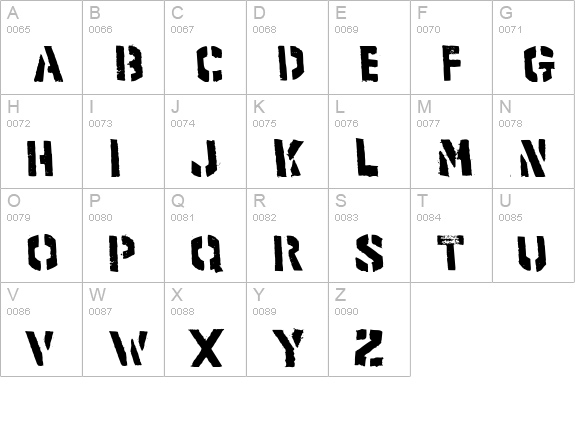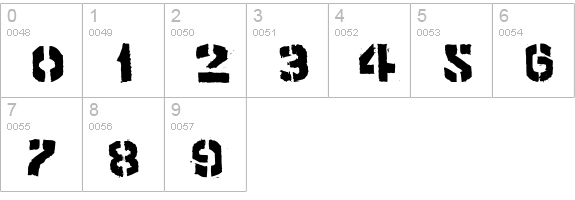
Introducing our exquisite font, designed to elevate your design projects to new heights. This versatile font boasts a timeless elegance that is sure to make a lasting impression. Whether you're creating a stunning logo, eye-catching poster, or sleek website design, this font has got you covered. And the best part? It's completely free! Yes, you heard that right. You can easily download this exceptional font at FontsMarket.com without spending a single penny. Embrace the beauty and functionality of this font today and watch your designs come to life in ways you never thought possible. Don't miss out on this amazing opportunity to enhance your creative projects with a premium font that won't break the bank. Download now and let your creativity soar!